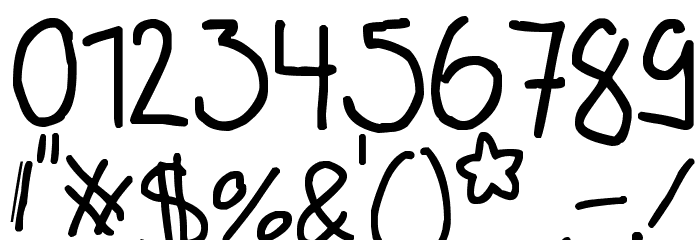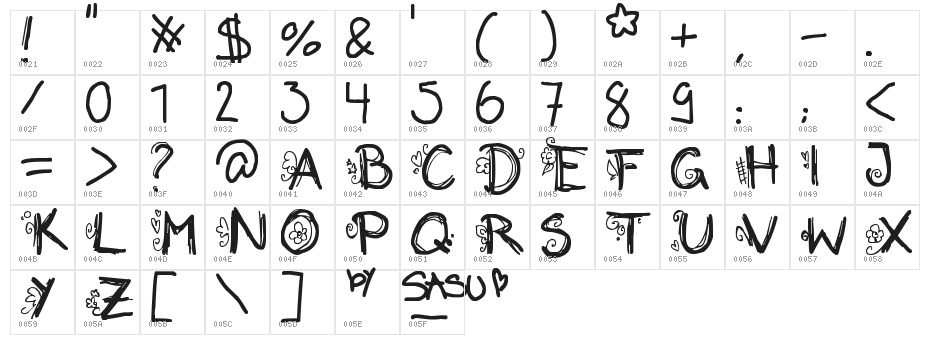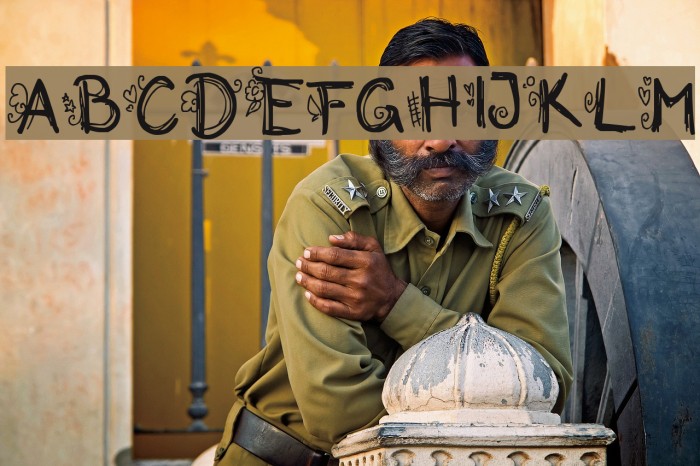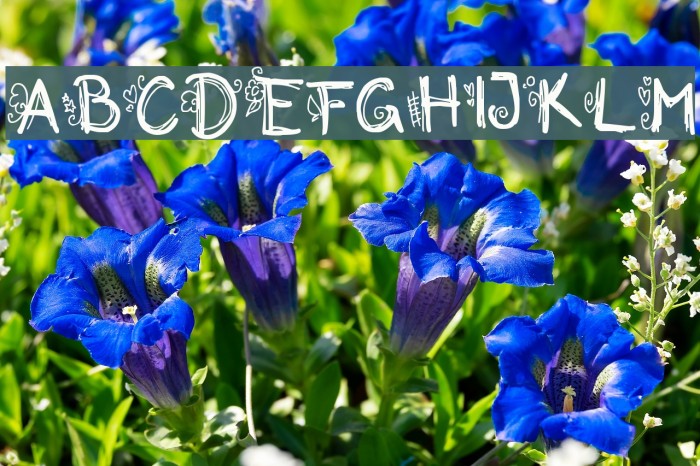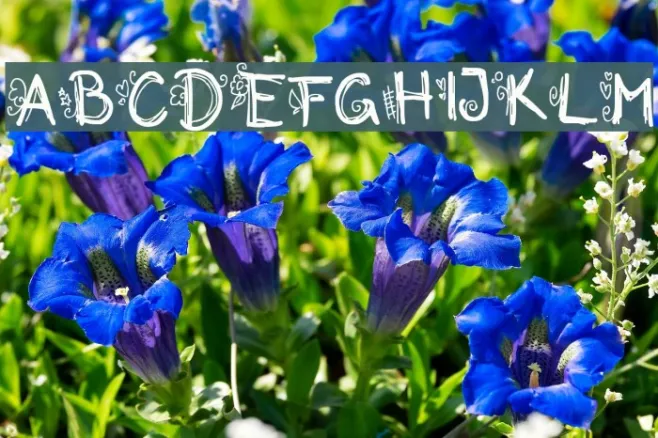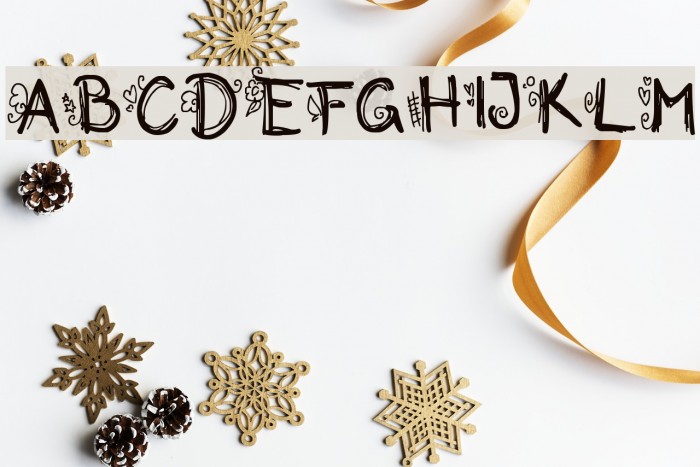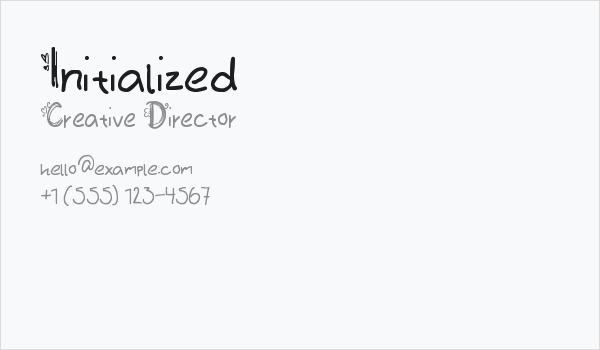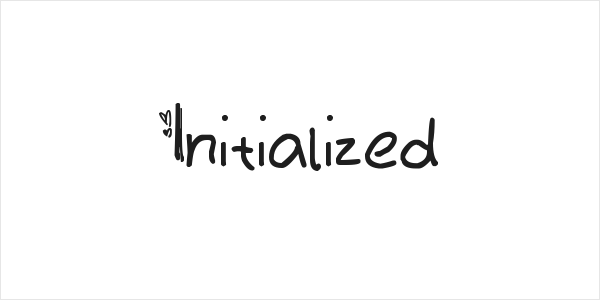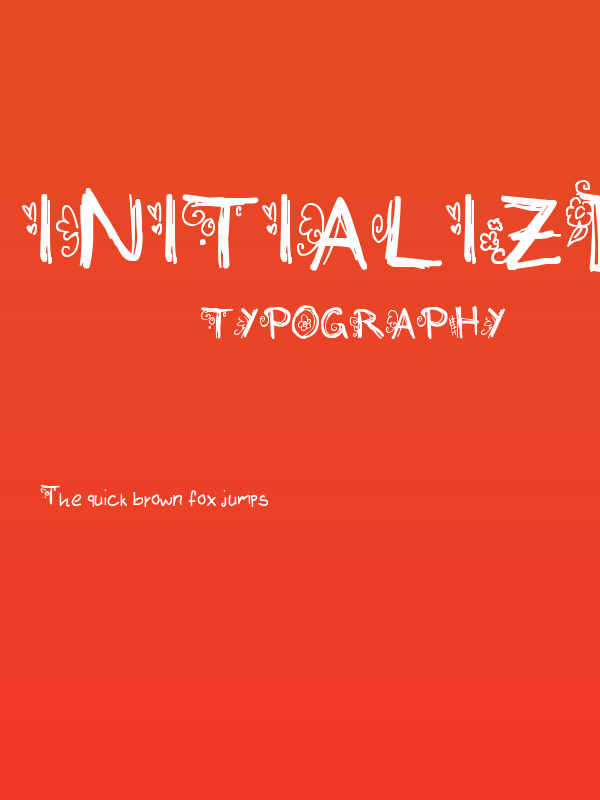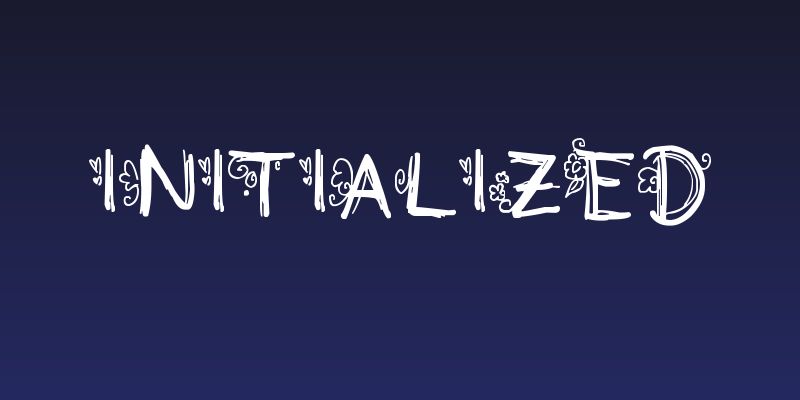
Initialized Font
Initialized Description
This playful and decorative font features uppercase letters adorned with whimsical floral elements, adding a touch of nature-inspired charm. The lowercase letters maintain a casual, handwritten style, offering a friendly and approachable feel. The numerals are bold and slightly irregular, enhancing the font's informal aesthetic. Special characters are creatively integrated, maintaining the overall theme. This font's unique style makes it ideal for projects that require a fun and lively touch, such as children's books, greeting cards, or playful branding materials.
| Overall Style | Playful, Whimsical, Decorative |
| Use Case | Headlines, Decorative text, Branding |
| Proposed Projects | Ideal for children's books, greeting cards, playful branding, and decorative posters. |